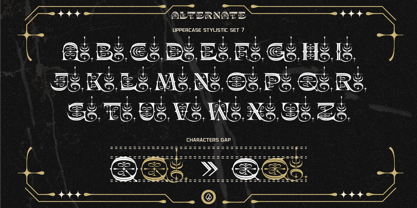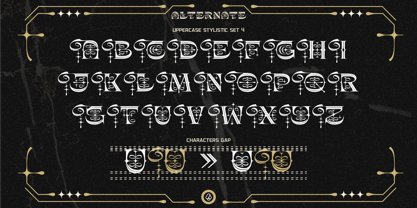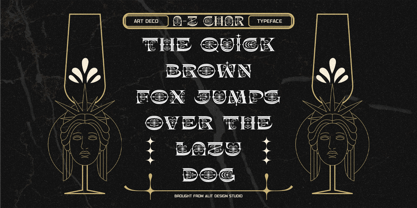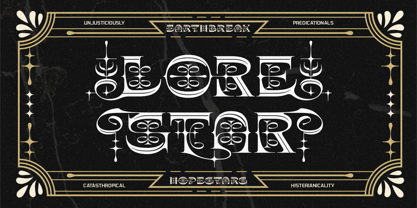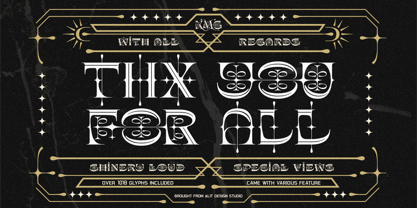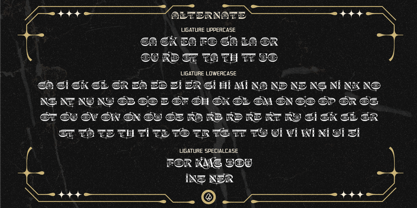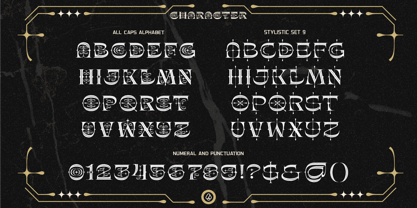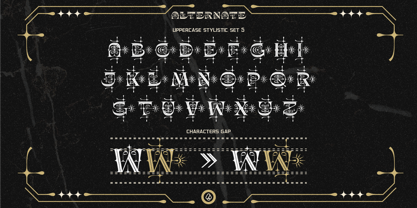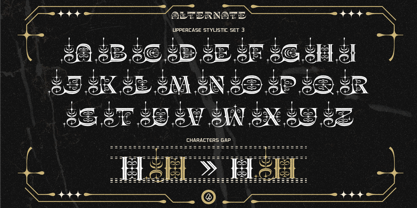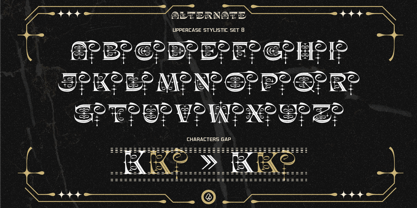
Shinery Loud
by Alit Design
Step into a world of timeless elegance and bold sophistication with Shinery Loud, a premium Art Deco display typeface masterfully crafted by Alit Design Studio. Inspired by the architectural grandeur, geometric precision, and opulent lifestyle of the roaring 1920s, Shinery Loud marries vintage aesthetic charm with modern typographic needs. As the name suggests, this font doesn't just whisper—it makes a loud, unforgettable statement.
Endless Creative Possibilities: What truly sets Shinery Loud apart is its monumental scale of customization. Packed with an astonishing 1,018 glyphs, this typeface is an absolute powerhouse for designers, branding agencies, and typographers. Whether you are aiming for a clean, minimalist geometric look or highly ornate and decorative lettering, the extensive stylistic sets provide you with all the tools necessary to tailor every single word to perfection.
Perfect For High-End Projects: Shinery Loud is incredibly versatile and shines brightest in commercial projects that demand a touch of luxury and exclusivity. It is the perfect choice for:
• Luxury Branding & Logotypes: Create distinctive, high-value identities for boutique hotels, fine jewelry brands, upscale fashion lines, and premium cosmetics.
• Beverage & Packaging Design: Ideal for vintage liquor labels, wine bottles, cigar packaging, and artisanal product wrappers.
• Event & Editorial Design: Stunning for Great Gatsby-themed wedding invitations, cinematic movie posters, magazine headers, book covers, and elegant event typography.
• Signage & Merchandising: Eye-catching for retro storefront signage, custom apparel, and decorative quote posters.
Comprehensive Features:
• 1,018 Total Glyphs: A massive library of characters to give you total design freedom.
• 8 Stylistic Sets (SS01 - SS08): Multiple sets of alternate characters allow you to easily change the mood, structure, and embellishments of your typography.
• Beautiful Ligatures: Expertly crafted letter combinations for flawless, natural, and decorative text flow.
• Multilingual Support: Comprehensive character sets supporting a wide range of Latin-based languages, making it ready for global use.
• Numerals & Punctuation: Complete standard numbers, symbols, and extensive punctuation marks.